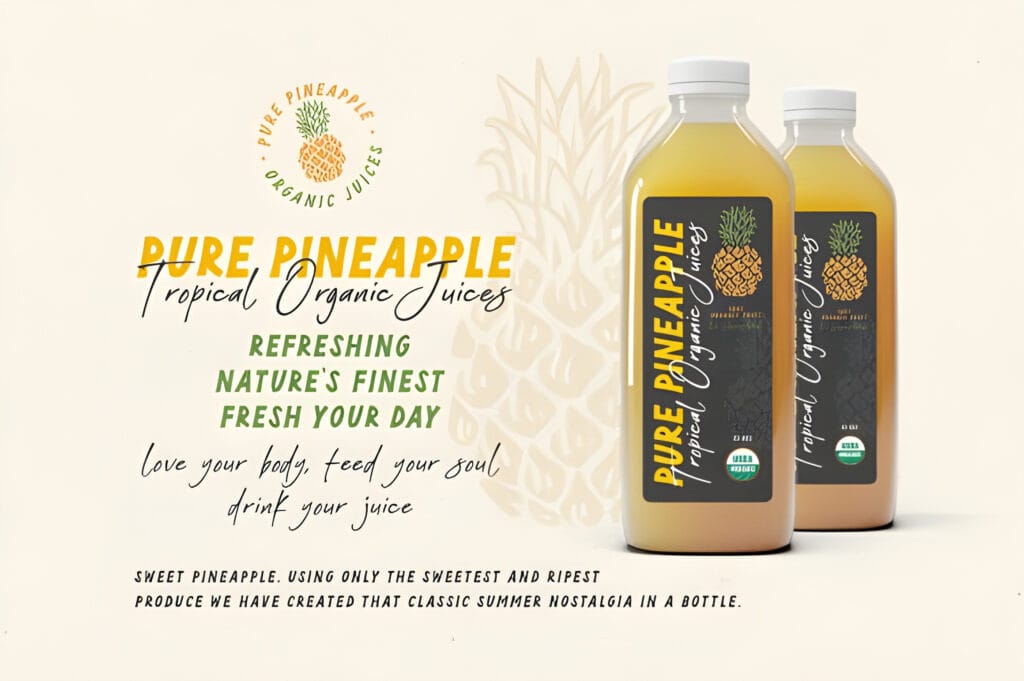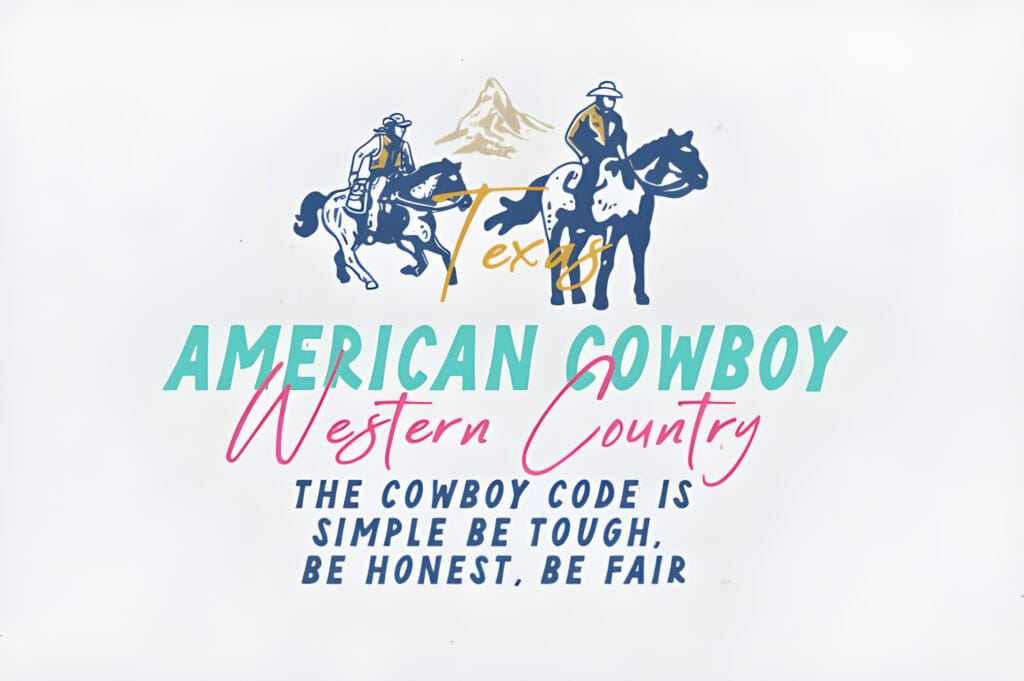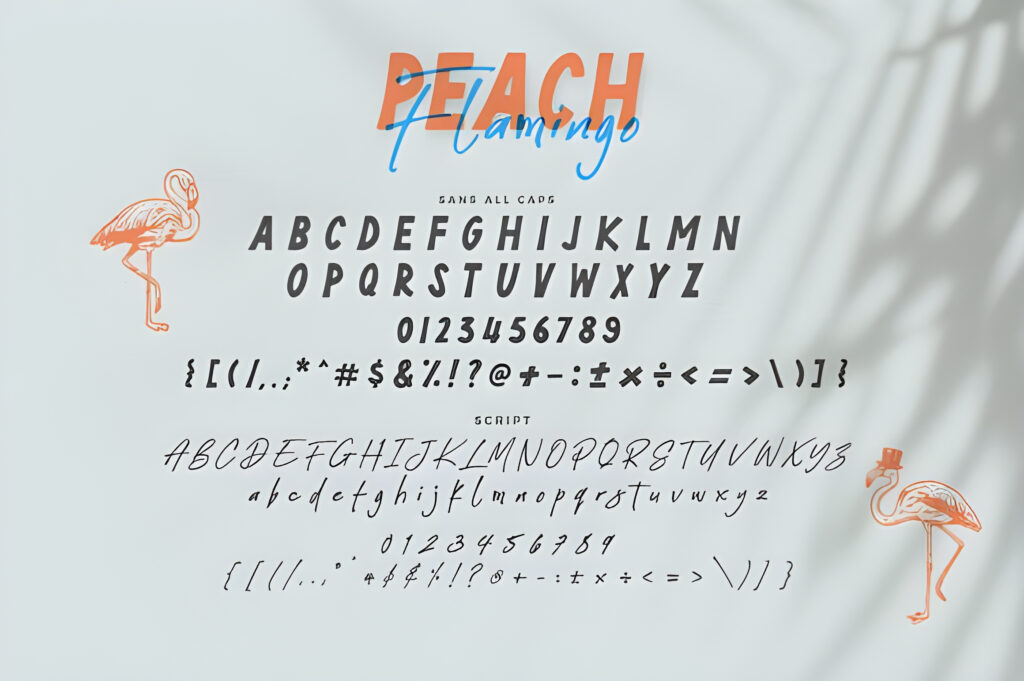
Peach Flamingo Font
Unleash Creativity with the Peach Flamingo Font Duo: A Modern Typography Masterpiece
In the dynamic world of design, typography is more than just letters—it’s a visual language that shapes emotion, identity, and engagement. For designers seeking versatility and character, the Peach Flamingo Font Duo emerges as a game-changer. Combining raw energy and organic elegance, this free font duo redefines modern handwritten typography, offering endless creative possibilities.
The Power of Contrast: Bold Sans Meets Wild Script
At its core, the Peach Flamingo Font Duo thrives on contrast. The first font, a bold, all-caps sans-serif, commands attention with its sharp edges and unapologetic simplicity. Designed to embody strength and modernity, it’s perfect for headlines, logos, or branding elements that demand instant impact. Paired with it is an organic, wild script font—a free-flowing, handcrafted style that exudes spontaneity and warmth. Together, they create a “raw power struggle” that balances structure with creativity, making the duo ideal for projects that need both punch and personality.
What sets this pair apart is its intentional clash of styles. The sans-serif’s rigidity contrasts beautifully with the script’s fluidity, allowing designers to craft layouts that feel dynamic yet harmonious. Whether you’re designing a poster, social media graphic, or packaging, this duality ensures your message stands out.
Beyond Fonts: Swanky Dingbats & Vector Bonuses
Peach Flamingo doesn’t stop at letters. The sans-serif font includes quirky dingbats—think arrows, stars, and abstract shapes—that add playful accents to your work. These elements are perfect for bullet points, dividers, or standalone decorations. Meanwhile, the package also includes free vector illustrations, such as floral motifs, brush strokes, and geometric patterns. These bonuses let you “spice up” designs without extra cost, saving time while enhancing visual appeal.
Why Designers Love Peach Flamingo
1. Versatility: From branding to invitations, this duo adapts to any project. Use the sans for bold titles and the script for subtler text, or layer them for striking contrast.
2. Authenticity: The handwritten script mimics natural ink flow, giving designs an approachable, human touch—a rarity in overly polished digital typography.
3. Free Access: Unlike premium competitors, democratizing high-quality design tools for hobbyists and professionals alike.
Applications That Shine
• Branding & Logos: The sans-serif’s boldness builds brand recognition, while the script adds warmth to taglines.
• Social Media Graphics: Create eye-catching posts with layered text and vector accents.
• Wedding Invitations: The script’s elegance pairs beautifully with the sans-serif’s clean lines for modern romance.
• Packaging & Merchandise: Use dingbats and vectors to add texture to labels or apparel designs.
How to Maximize the Peach Flamingo Duo
• Pair with Minimalism: Let the fonts shine by using plenty of white space and neutral backgrounds.
• Mix with Textures: Overlay the script on grainy photos or watercolor washes for a tactile feel.
• Experiment with Color: Try vibrant hues for the sans and muted tones for the script to emphasize contrast.
Why Choose Free Fonts? Debunking Myths
Some designers hesitate to use free fonts, fearing limited quality or overuse. However, Peach Flamingo breaks stereotypes by offering exclusive, professionally crafted glyphs rarely found in free packs. Its unique combination ensures your work won’t blend into the crowd. Plus, the added vectors and dingbats provide extra value often reserved for premium products.
Final Thoughts
In a saturated market of repetitive fonts, the Peach Flamingo Font Duo stands tall with its bold contrast, organic charm, and unmatched versatility. By offering professional-grade resources for free, it challenges competitors to prioritize creativity over cost. Don’t just design—make a statement.
Pro Tip: Pair this font duo with soft gradients or metallic accents for a trendy, modern aesthetic.